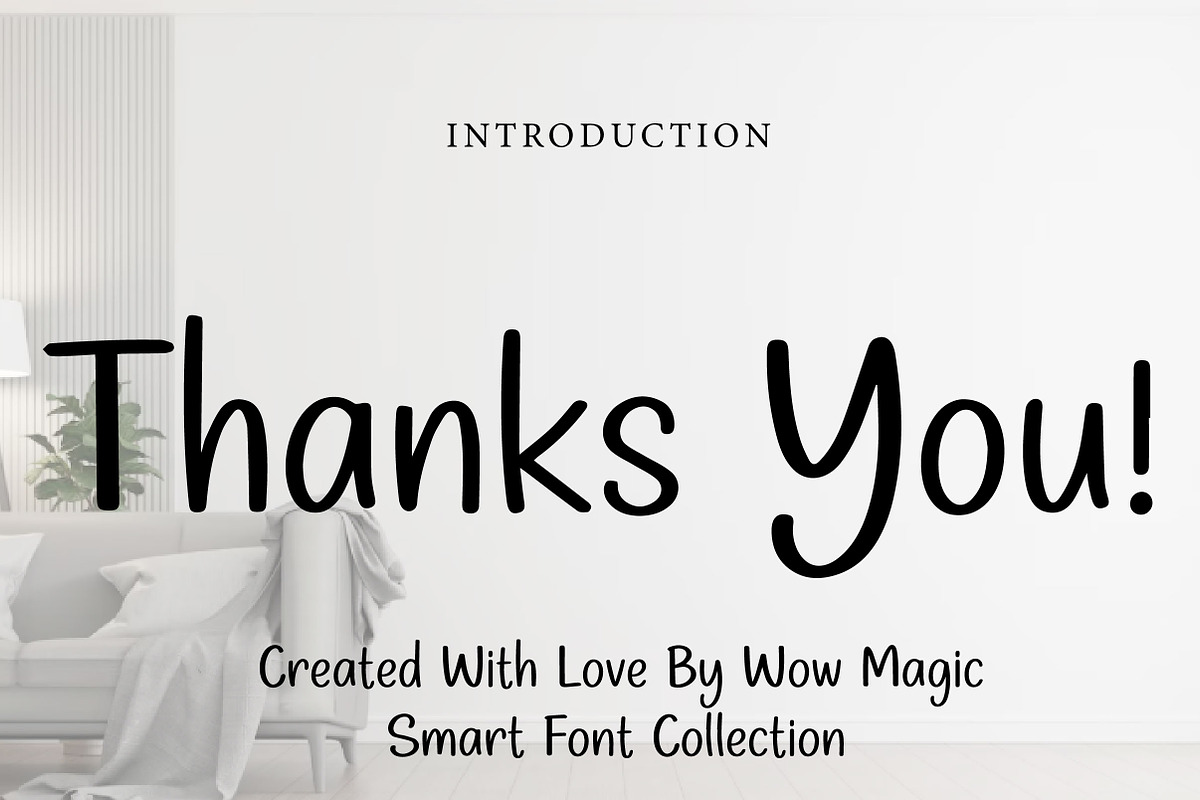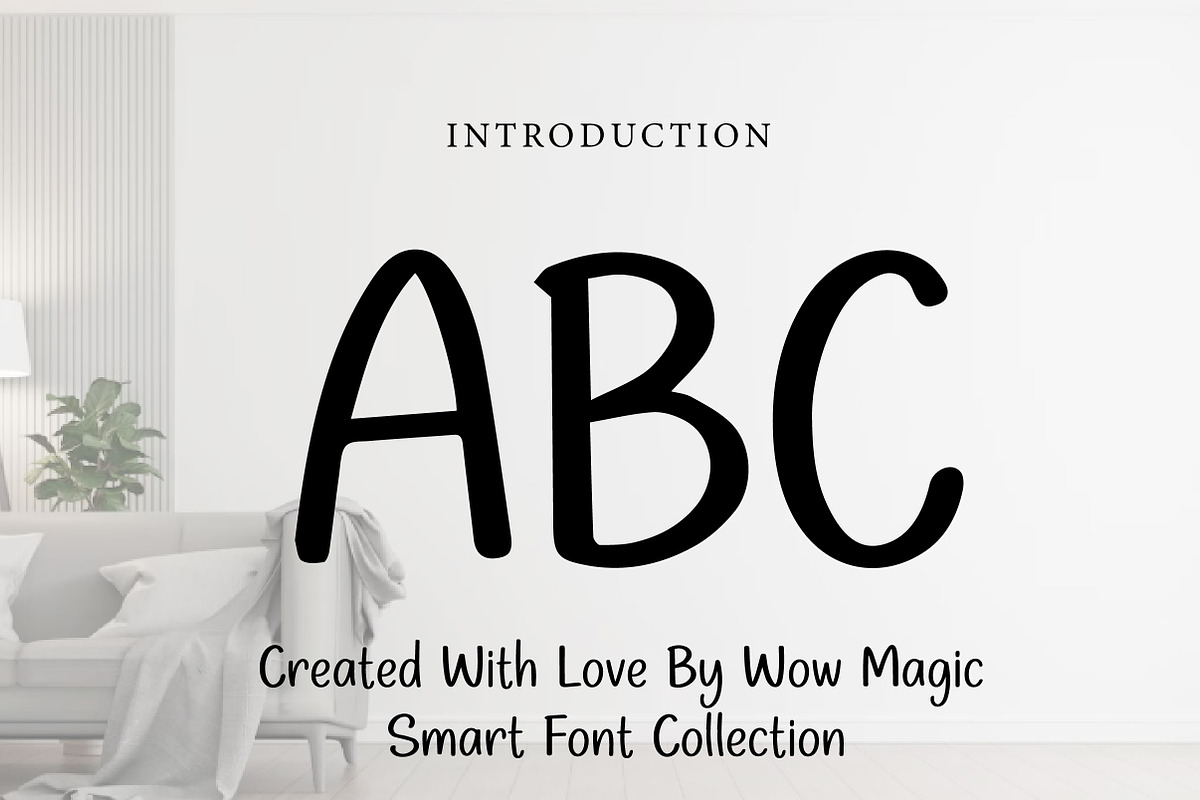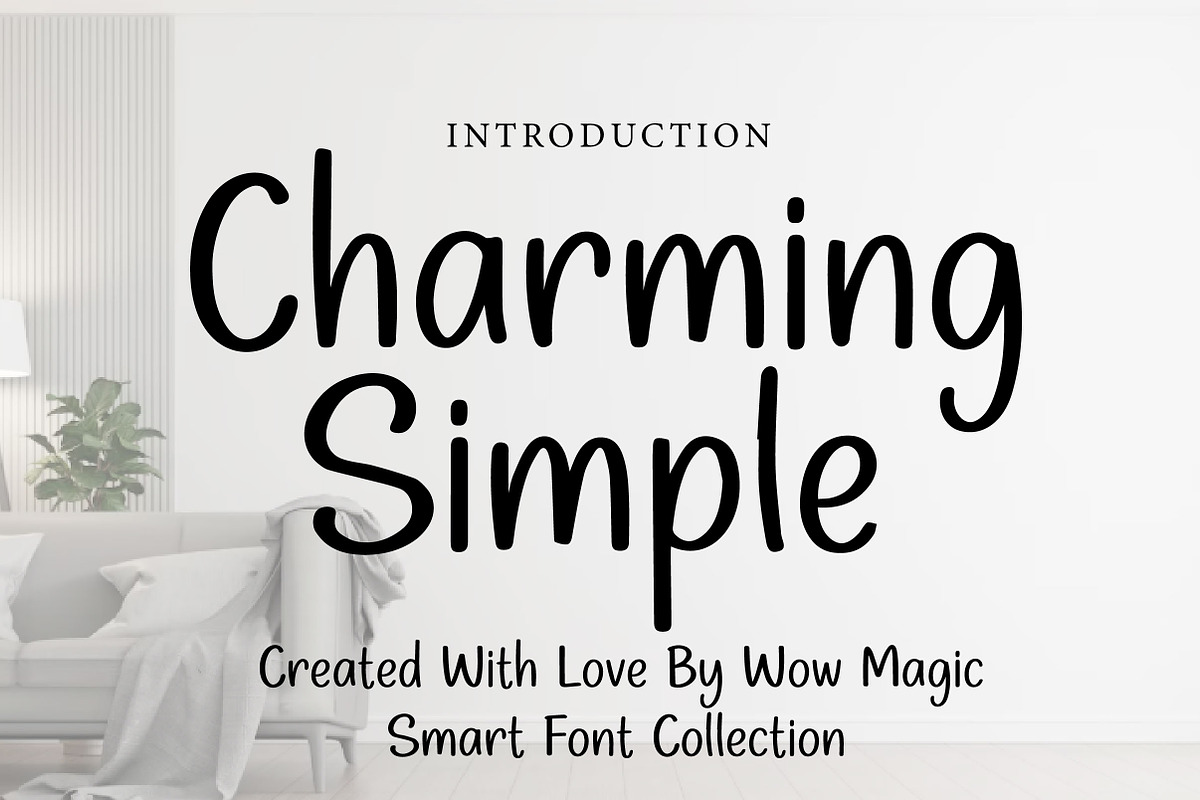
Charming Simple
Charming Simple – Sweet Handwritten Font
Charming Simple is a sweet and natural handwritten font with a clean, friendly, and effortless style. Its soft strokes and simple letterforms create a warm and charming look that feels personal, relaxed, and easy to love.
With its minimalist handwritten appearance, Charming Simple is perfect for branding, quotes, invitations, greeting cards, social media posts, packaging, wedding designs, and lifestyle content. It brings a gentle handmade touch that makes every design feel more authentic and approachable.
This font is a great choice for designers and creators who want a typeface that feels elegant in a simple way. Whether you are working on personal projects, feminine branding, or modern handmade designs, Charming Simple adds warmth and charm to every layout.
Why You’ll Love It: Clean and charming handwritten style Simple, natural, and friendly look Soft and easy-to-read letterforms Perfect for both personal and commercial projects Beautiful for print and digital use
Charming Simple is a sweet and natural handwritten font with a clean and friendly style. Perfect for branding, invitations, greeting cards, packaging, quotes, and social media designs, it adds a warm and charming handmade touch to any project.